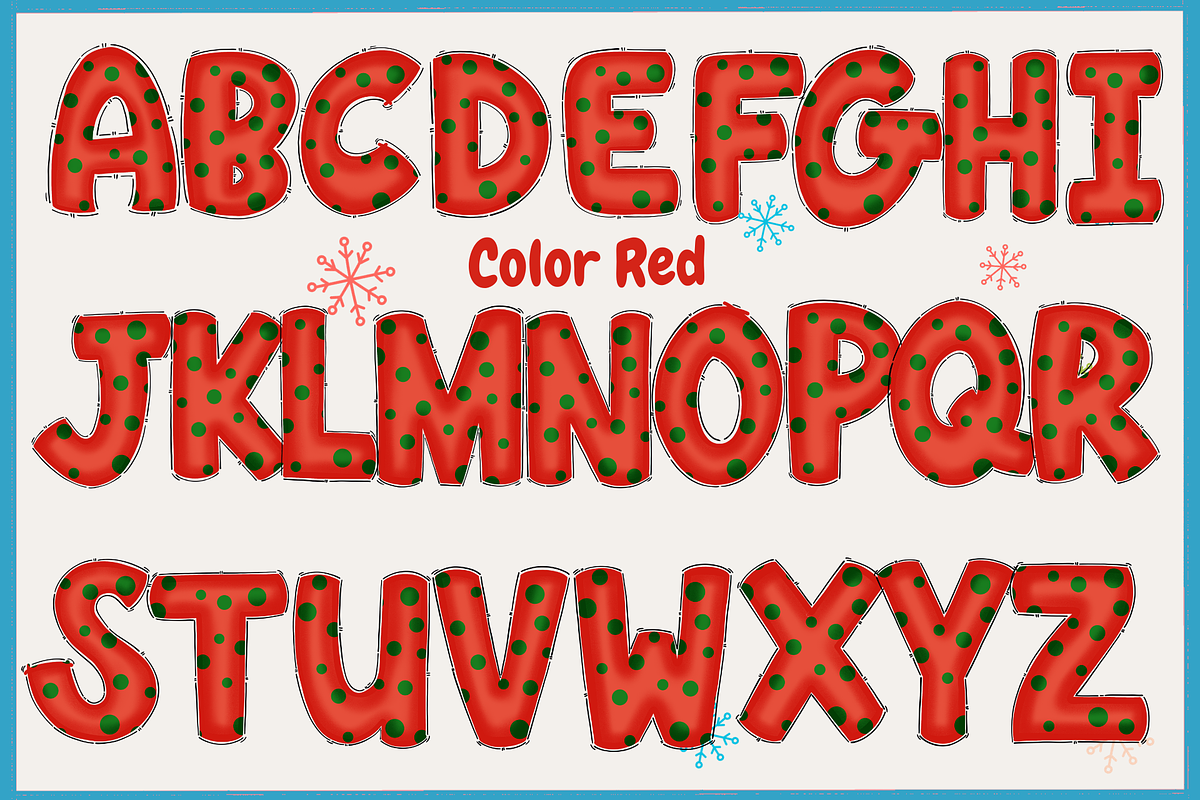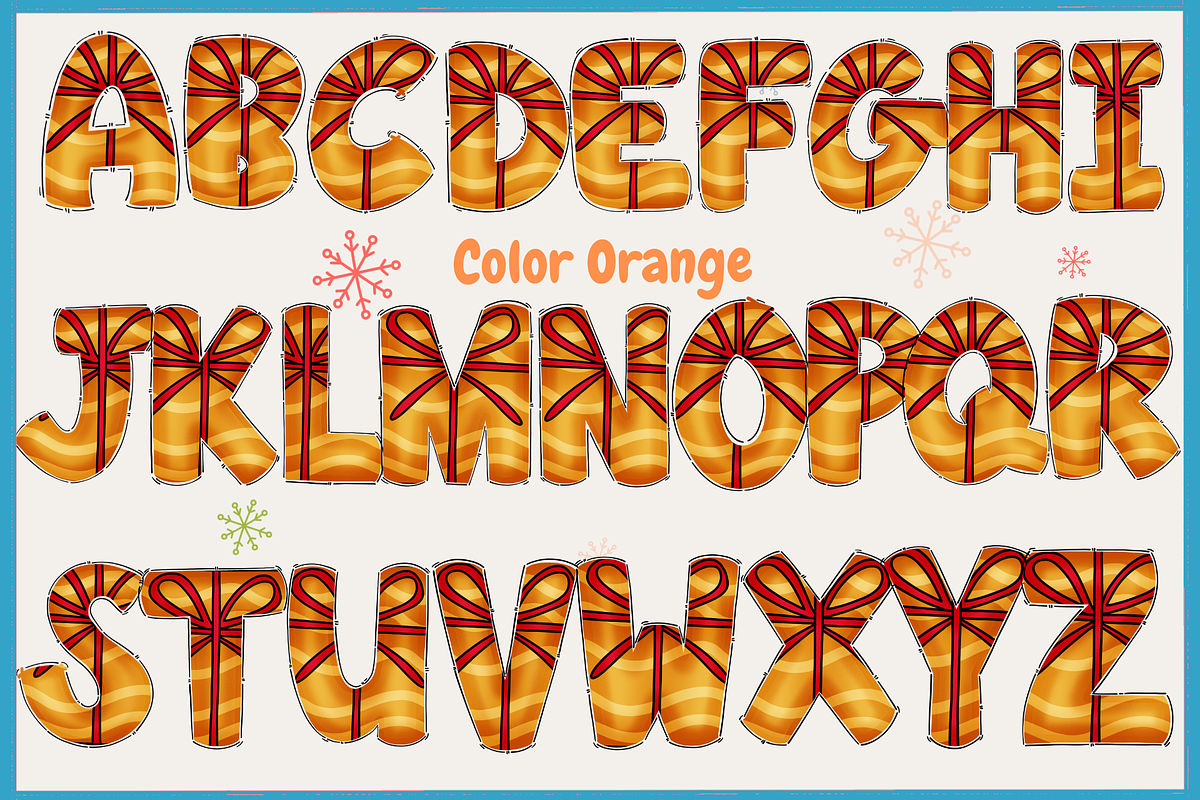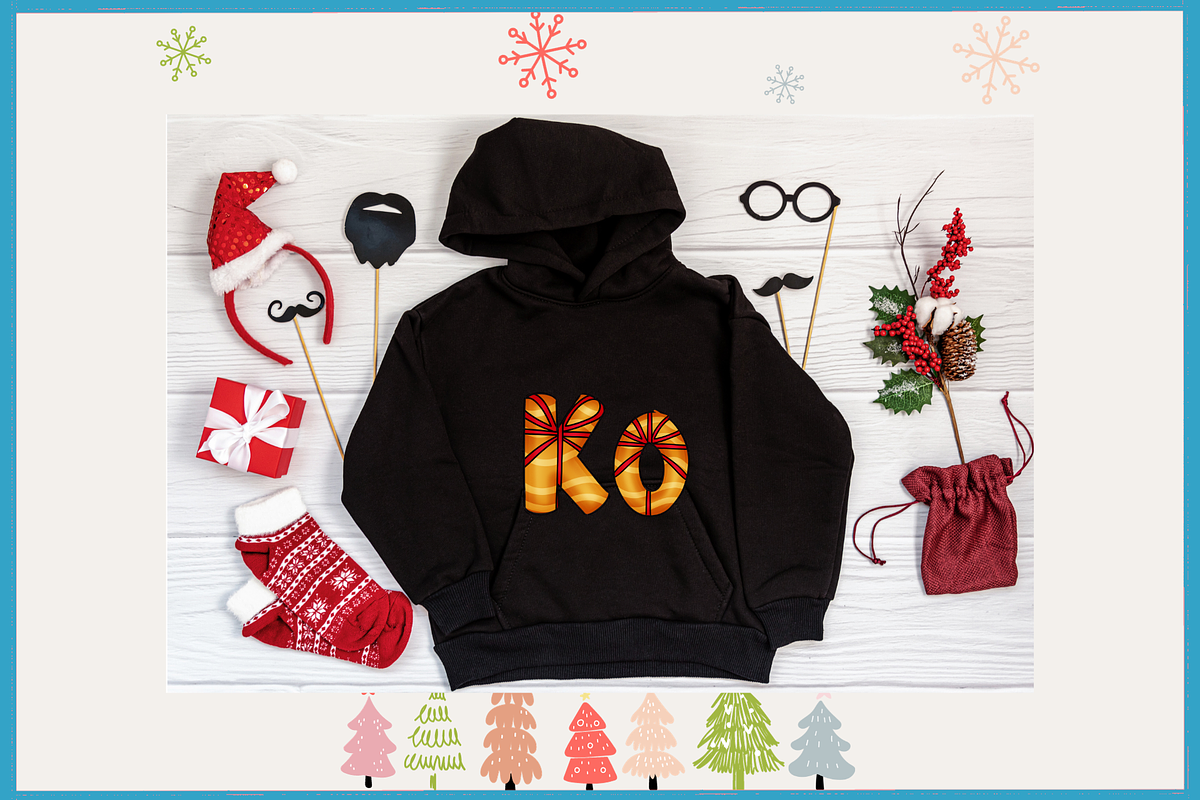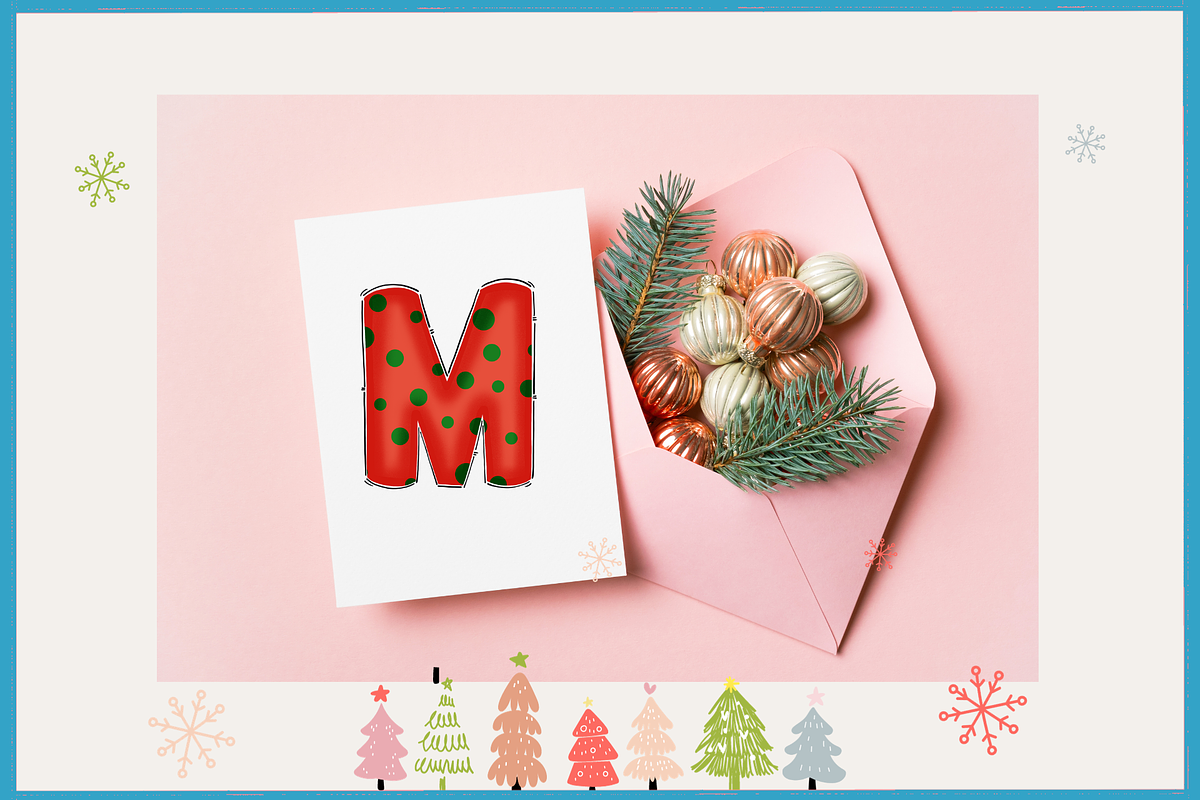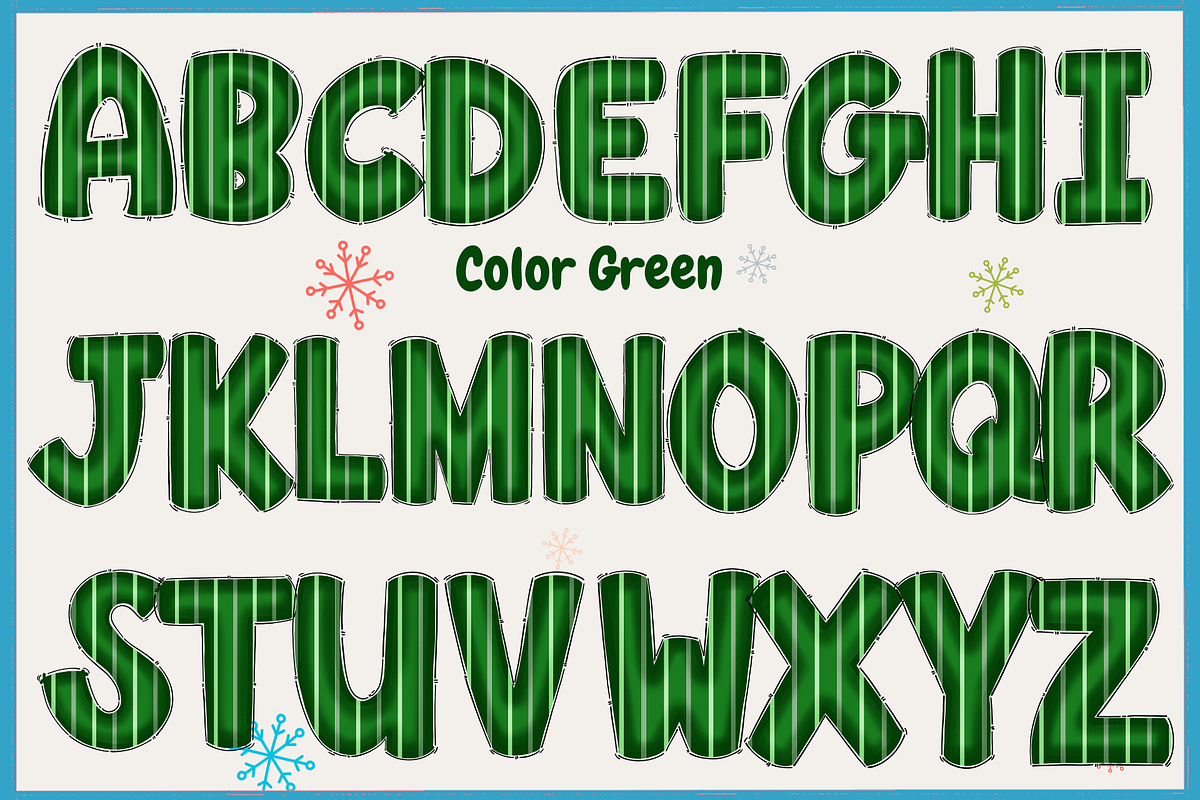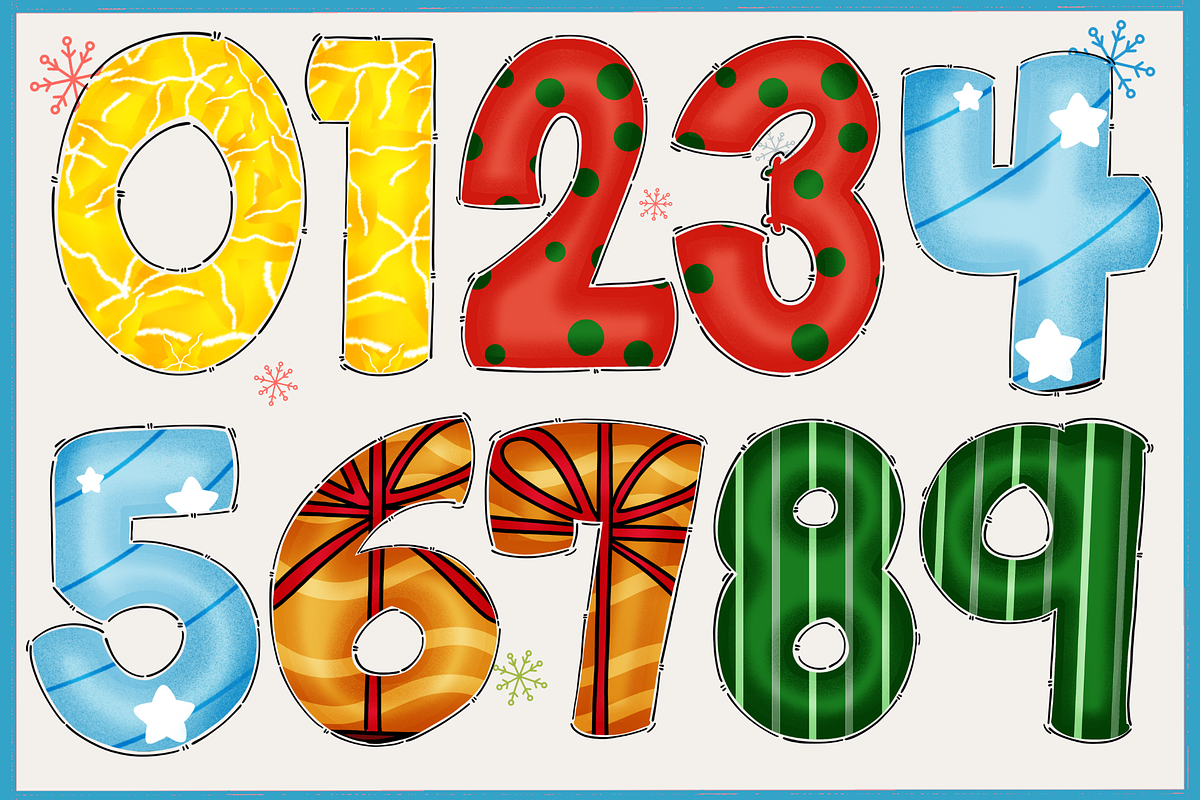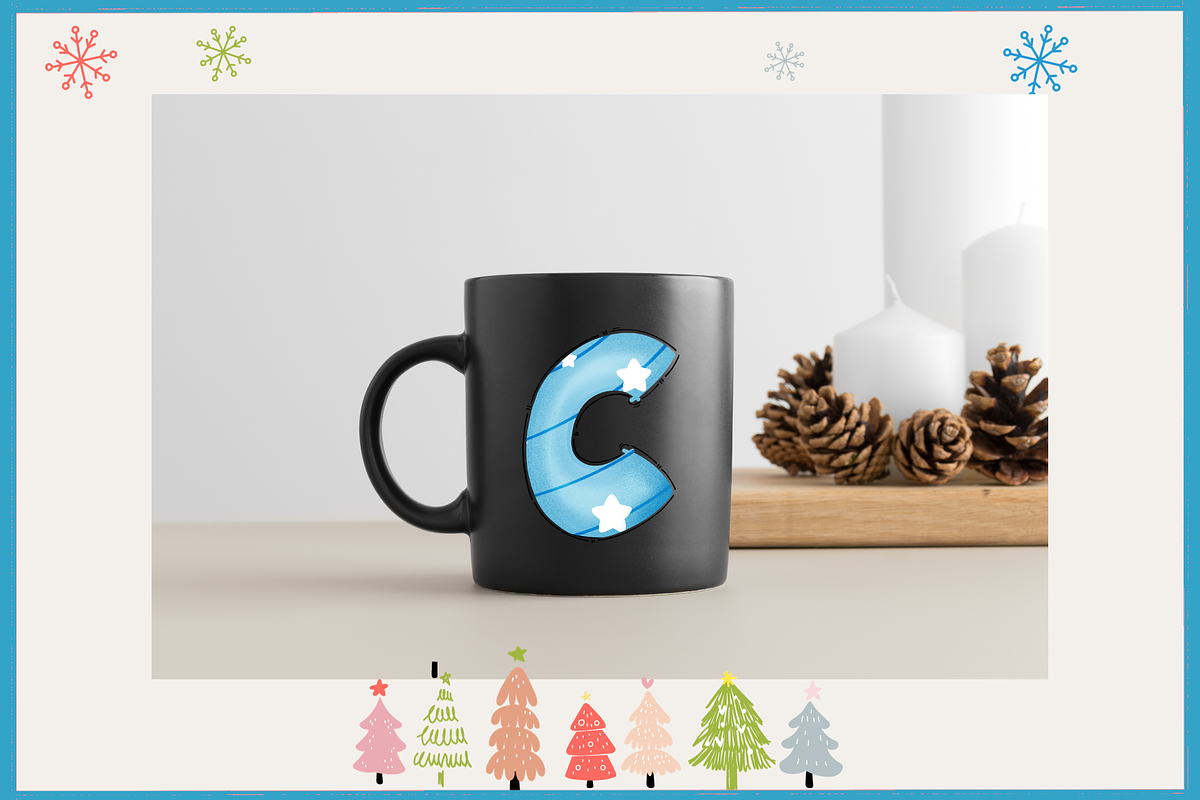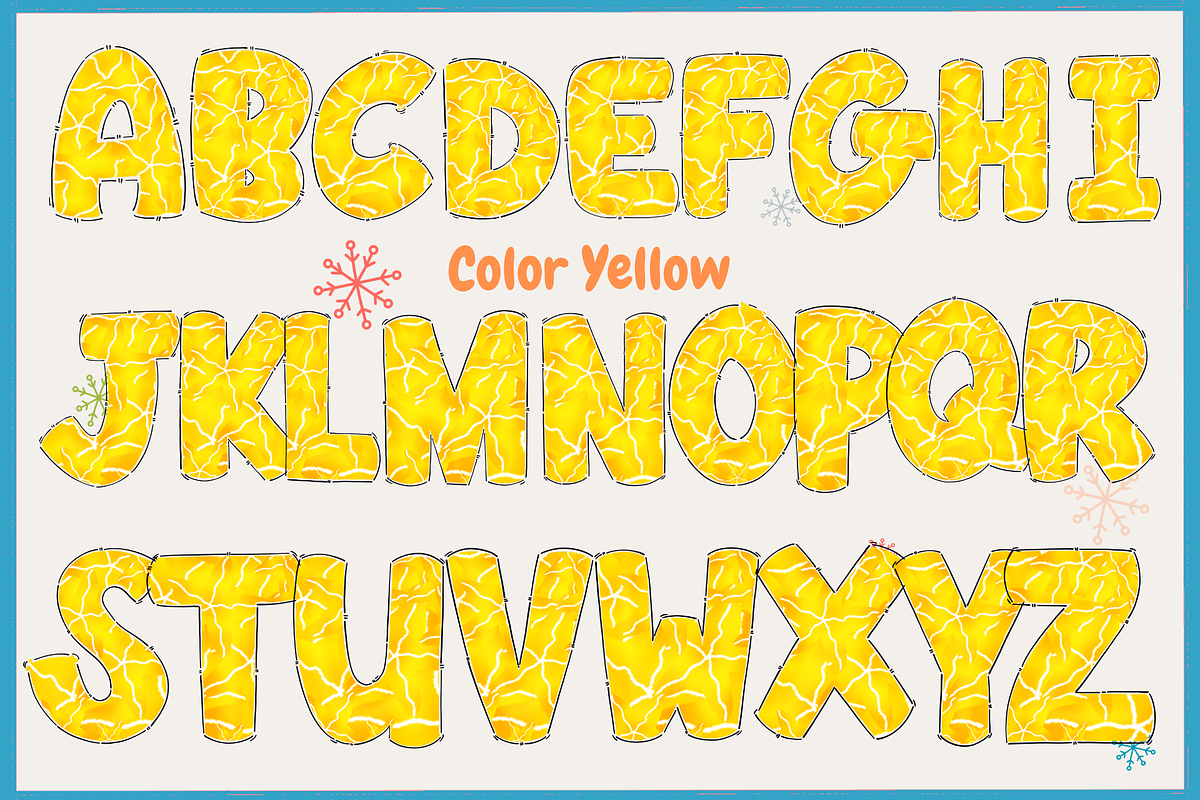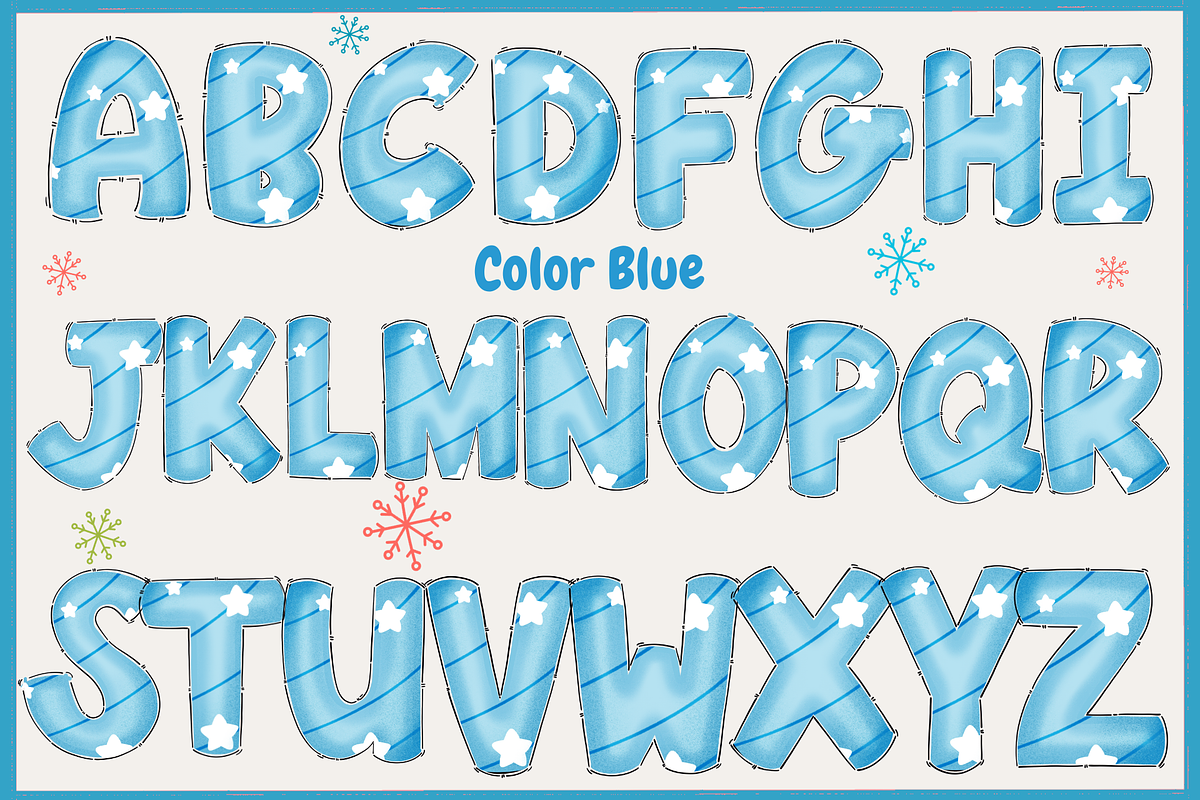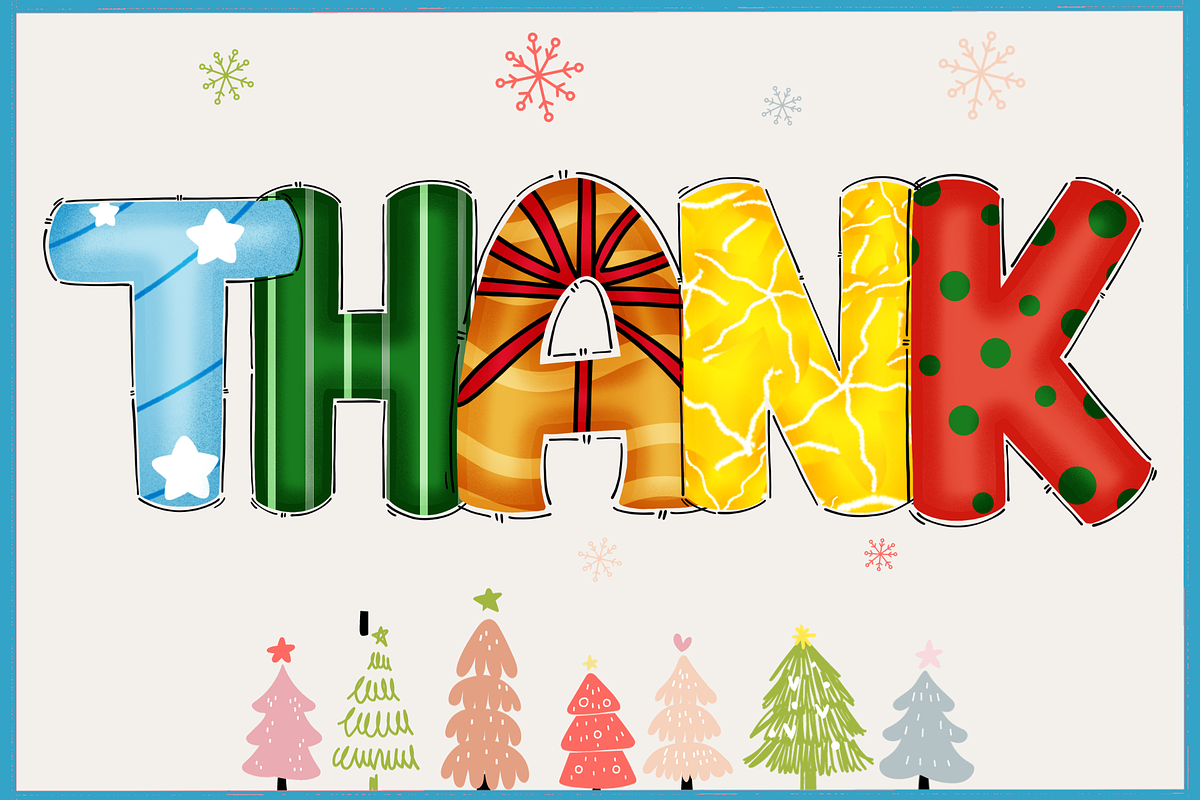
Christmas color set 6-PNG fonts
Christmas color set 6
Super cute handwriting font, simple style, suitable for teaching. decorate the presentation Use for education, advertising, illustration, multi-purpose use. welcome everyone thanks.